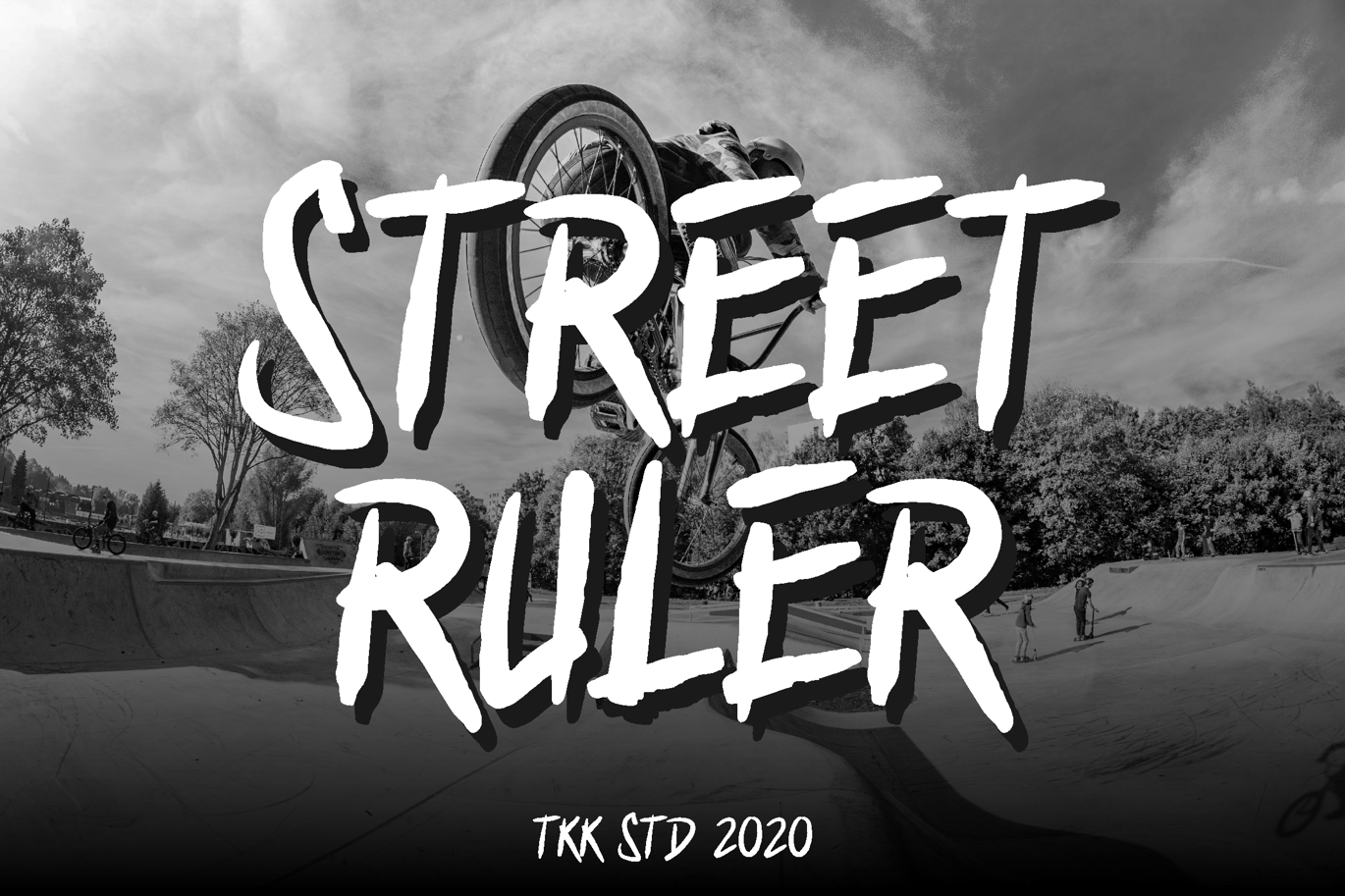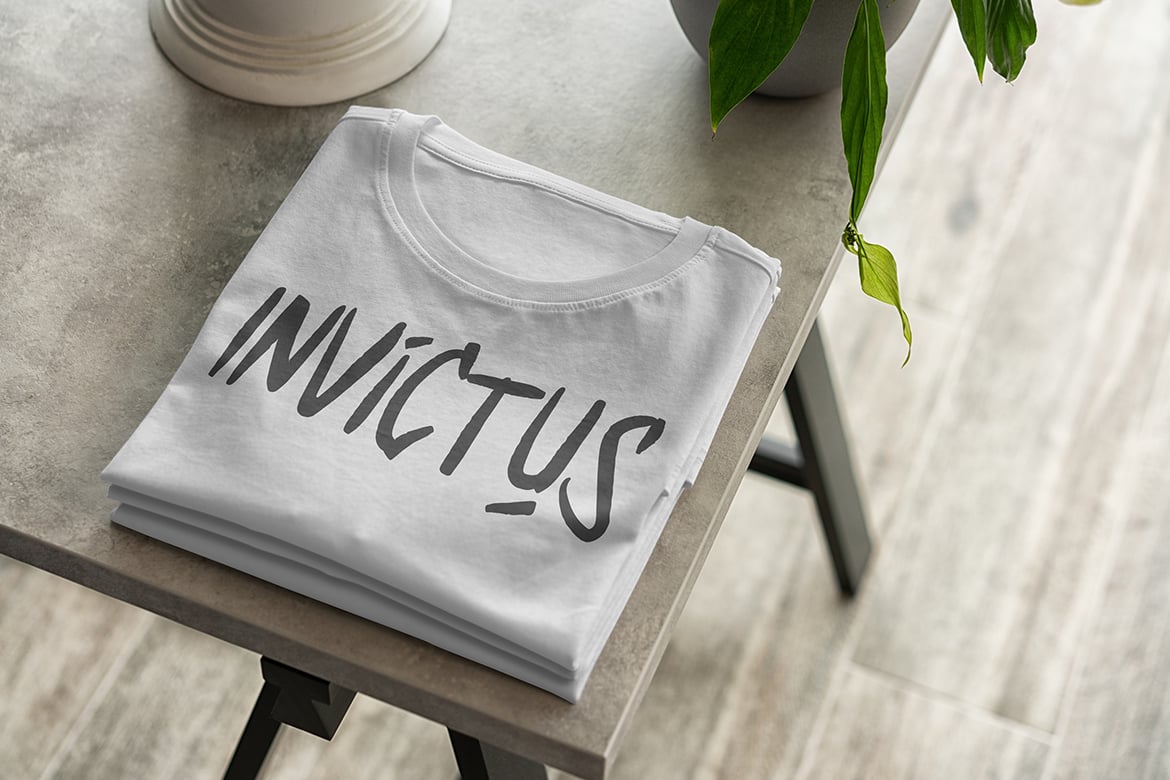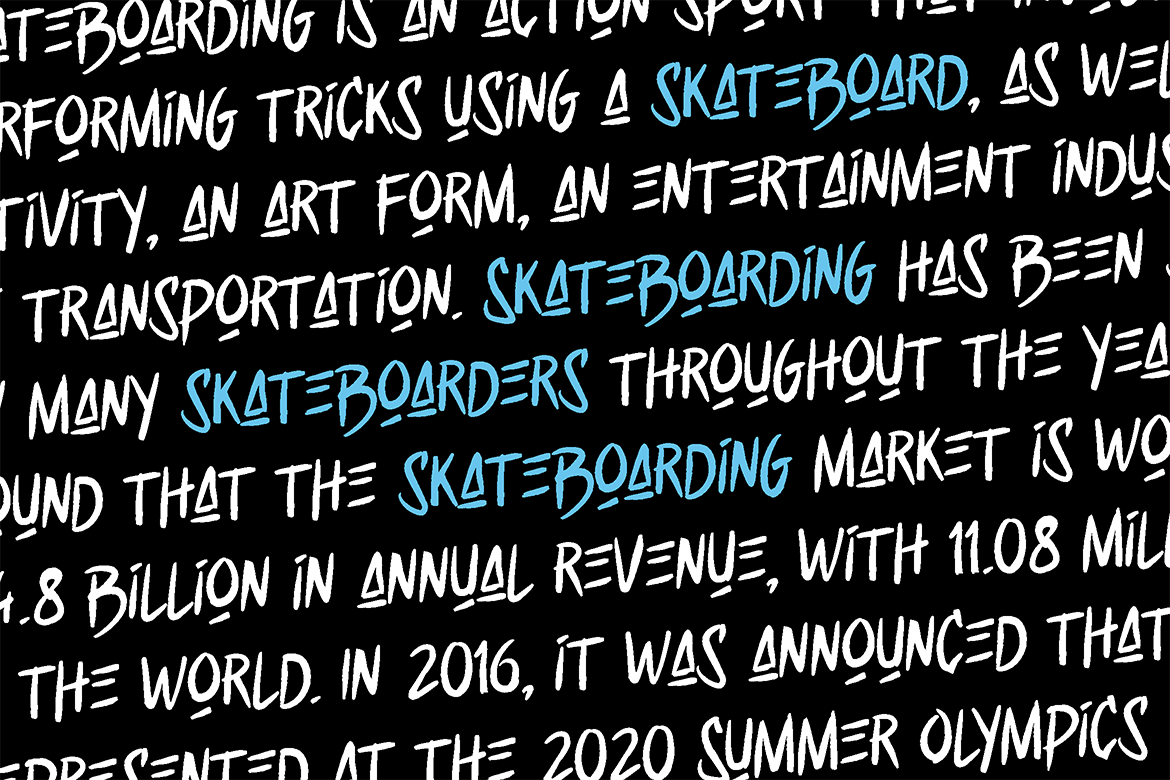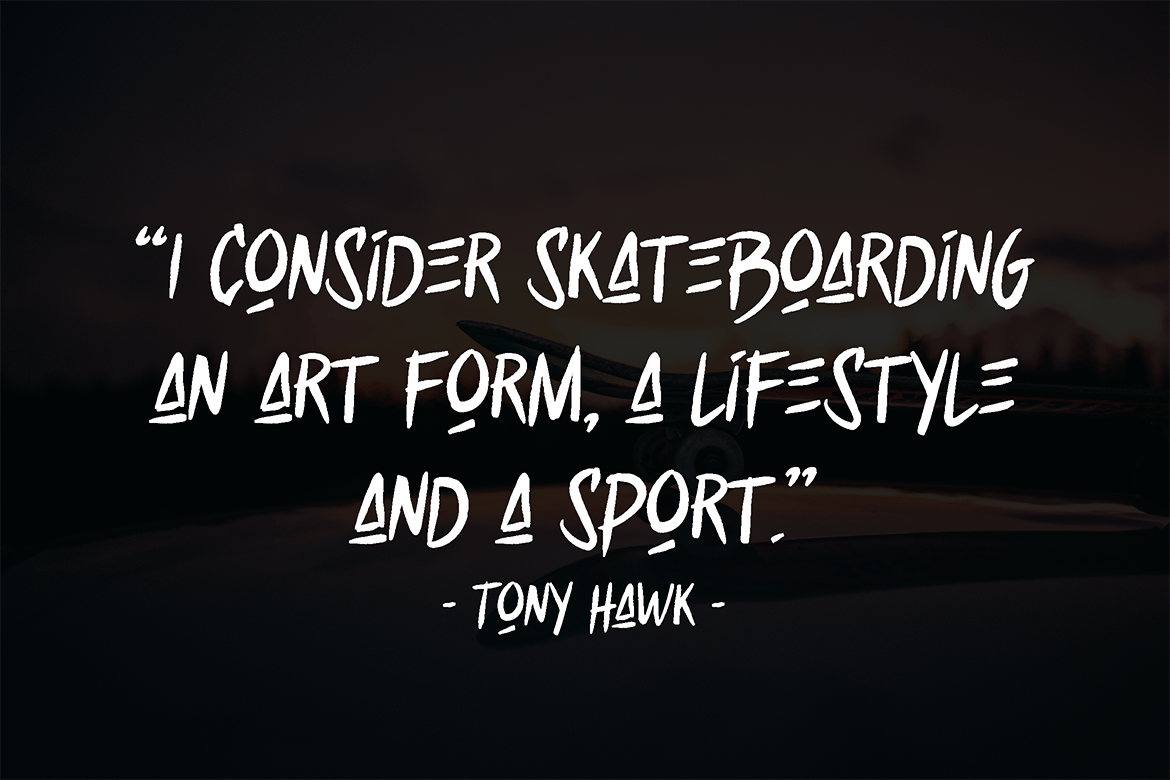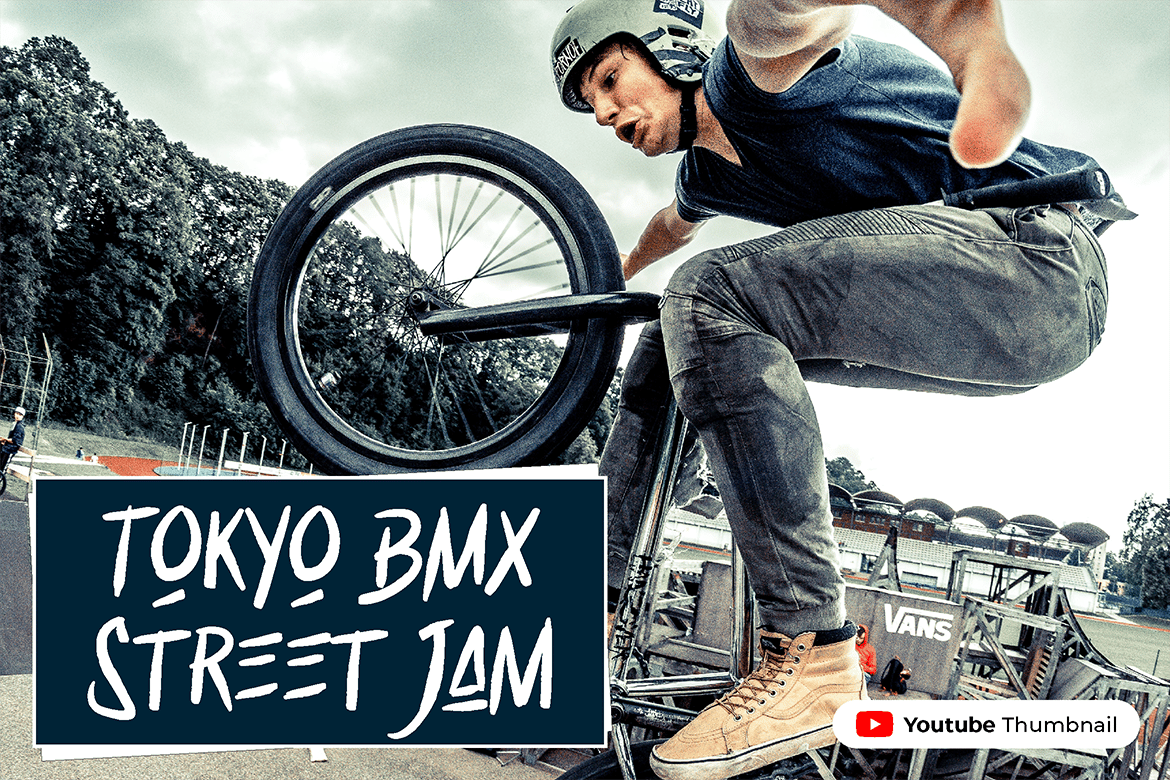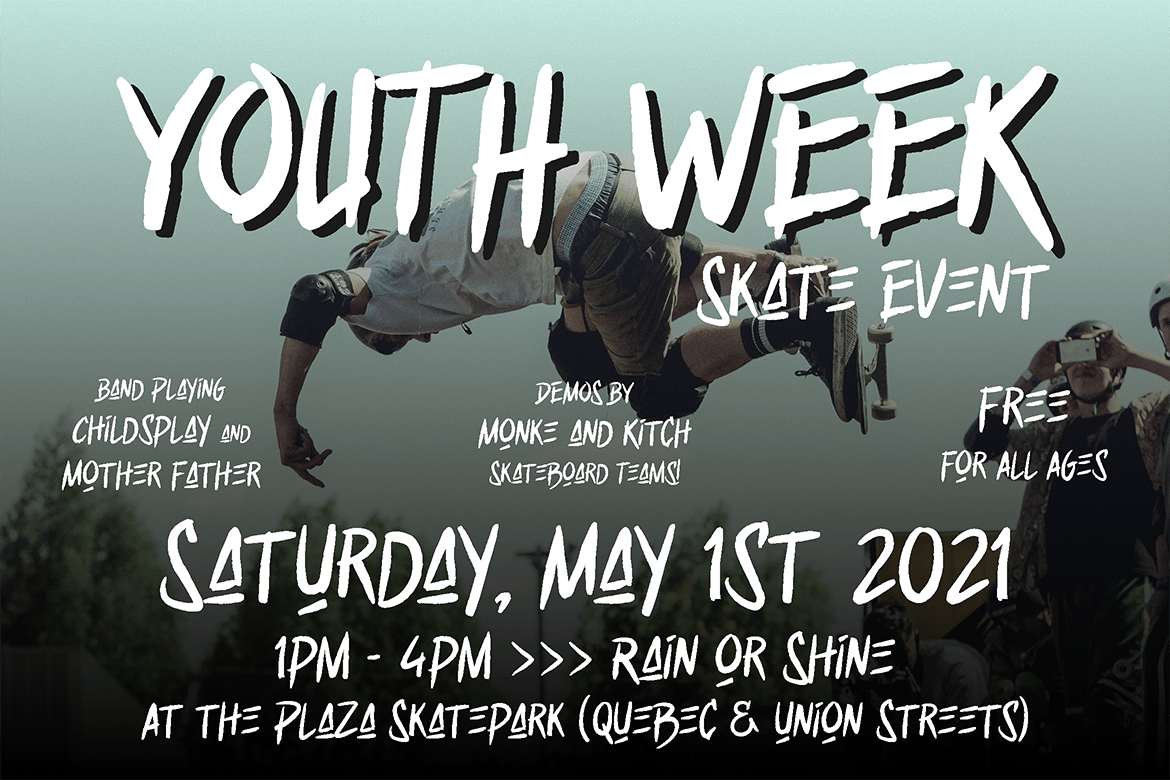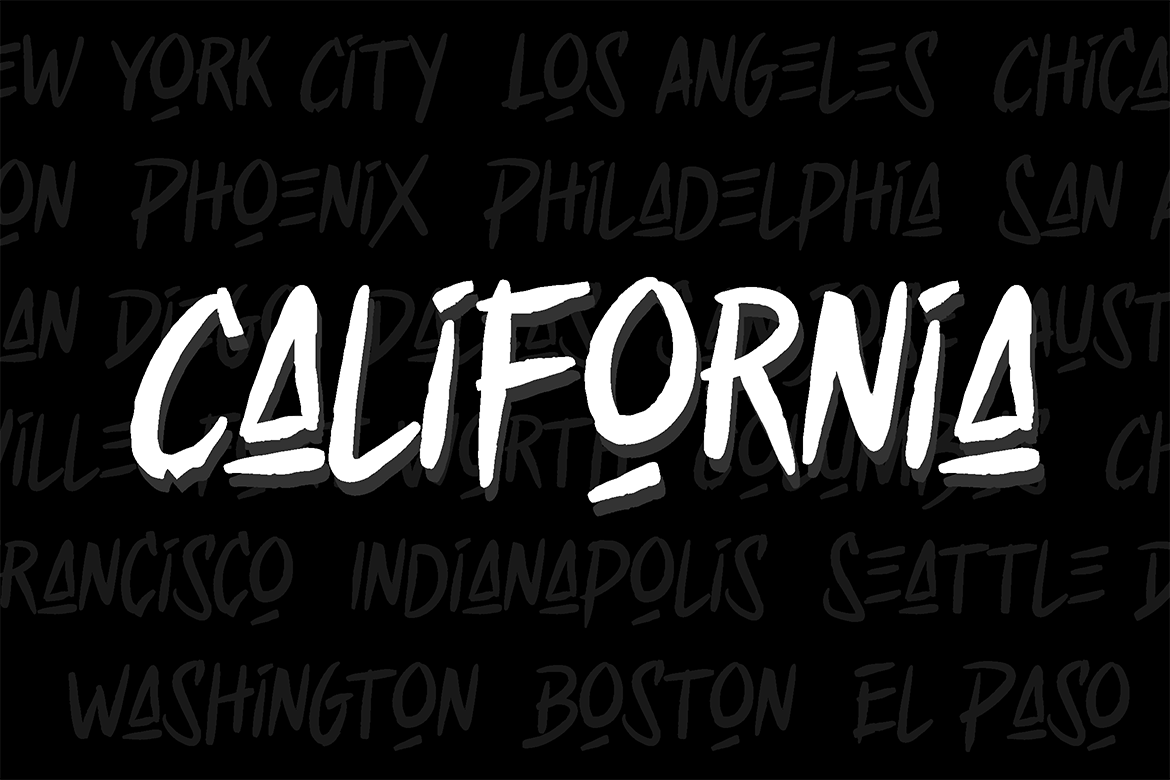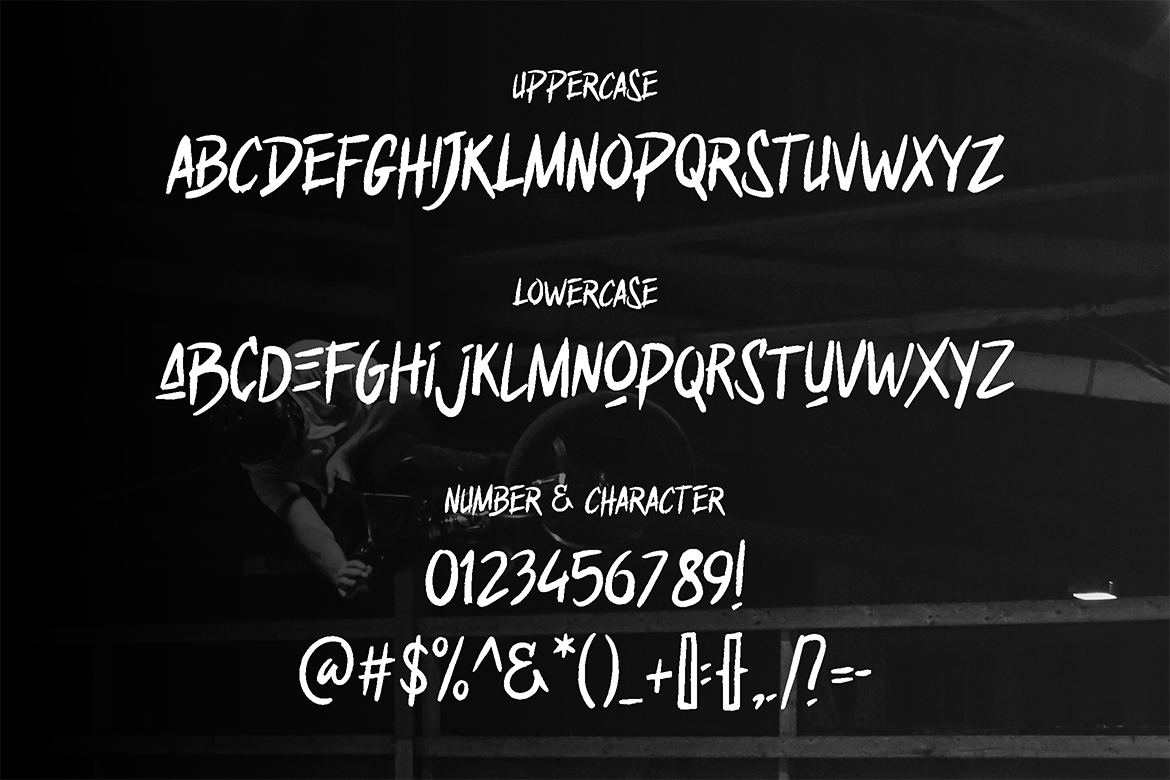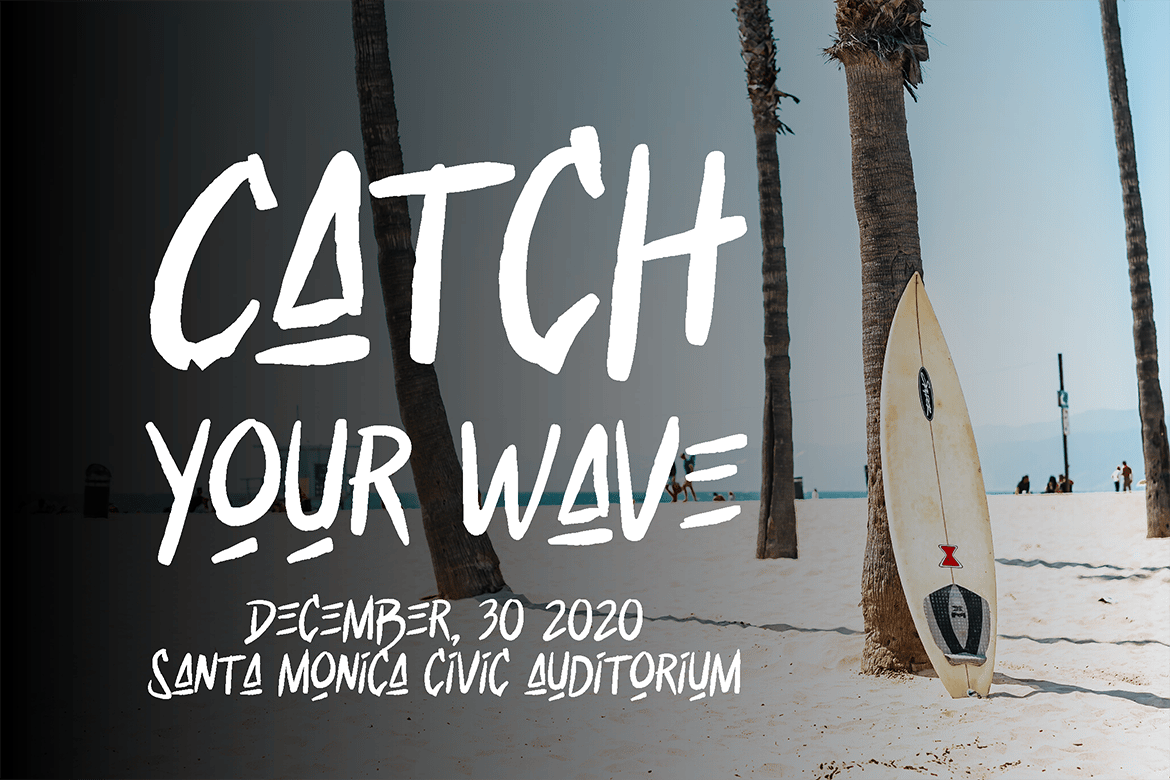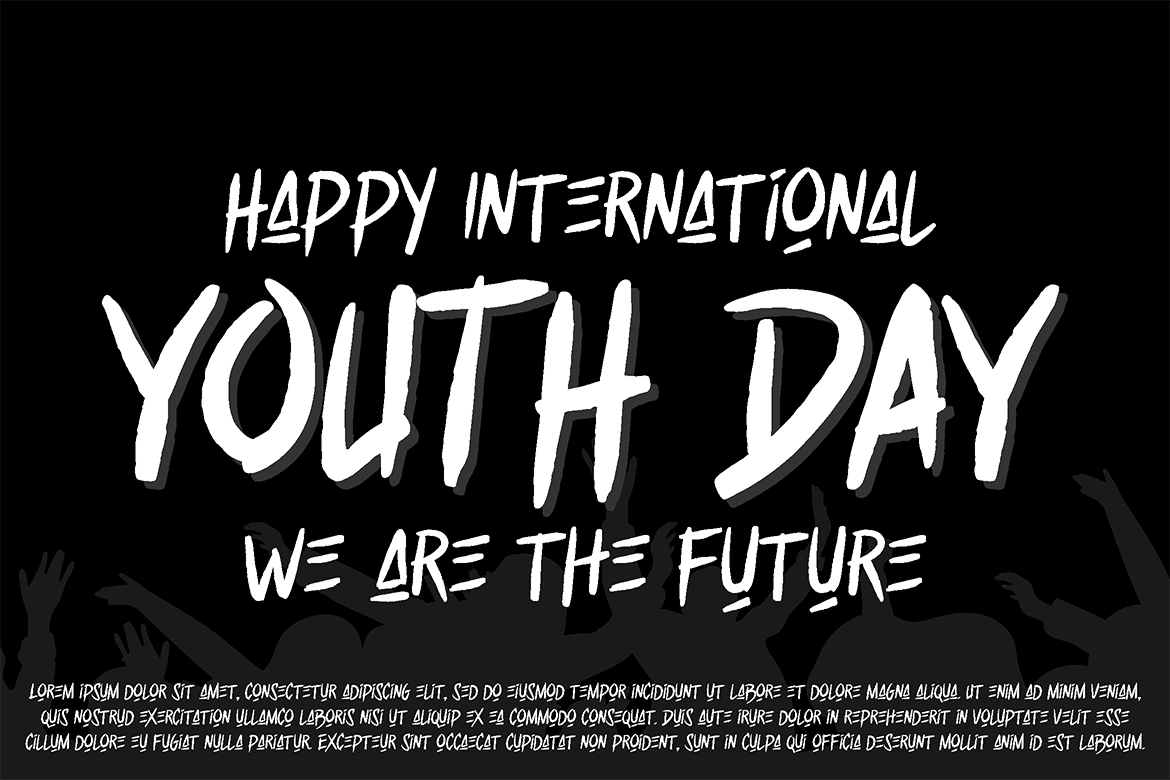
Street Ruler – Graffiti Font
Street Ruler – Urban Street Brush Font
It’s all about agressiveness, energy, and rebel youth. Street is where it’s all begin.
Suit perfectly for Urban clothing brand, skateboard and BMX event, poster, movie title, fast food menu, magazine, youtube covers, youtube thumbnails, social media page covers and so on…